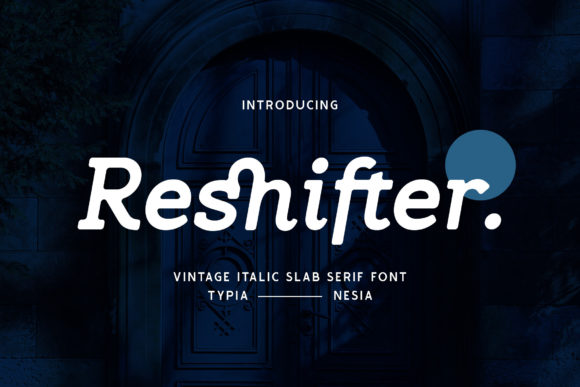
Journey back in time to the era of war posters with Reshifter Font, a slab serif masterpiece crafted by Typia Nesia. This font is not just a collection of letters; it's a gateway to a bygone era, a time when words had the power to rally nations and ignite hope amidst chaos.
With its bold and assertive strokes, Reshifter captures the essence of resilience and determination. Each character exudes a sense of strength and purpose, reminiscent of the unwavering spirit of those who fought for freedom and justice.
Imagine your words transformed into powerful propaganda posters, motivational flyers, or vintage-inspired designs. Reshifter's unique charm adds a touch of authenticity and nostalgia to any project, transporting you and your audience to a world where every word carries weight and every message has the potential to inspire.
Whether you're a graphic designer, a history enthusiast, or simply someone who appreciates the beauty of classic typography, Reshifter is an essential addition to your font library. Its versatility knows no bounds, from creating eye-catching headlines to designing compelling posters, invitations, and social media graphics.
Don't miss this opportunity to own a piece of history and make your designs stand out with Reshifter Font. Its timeless appeal and captivating aura will turn your creative visions into masterpieces that resonate with audiences of all ages.